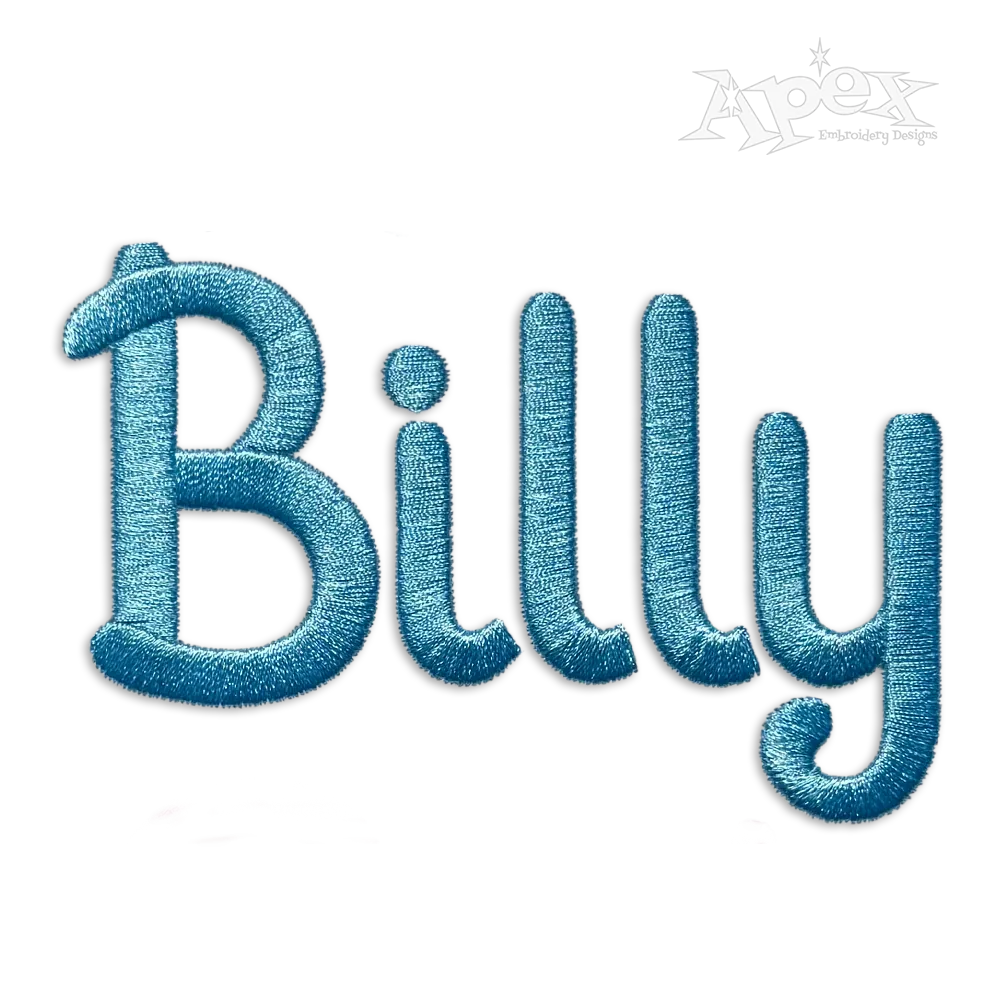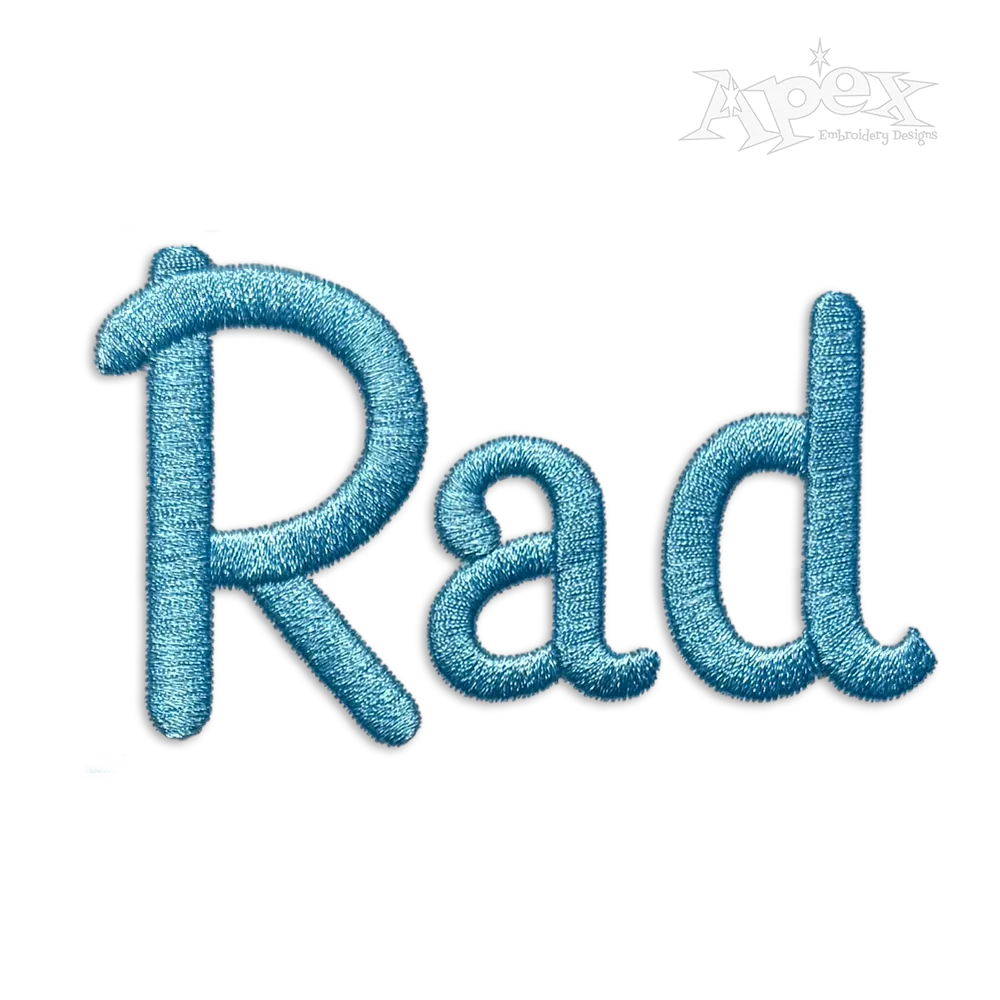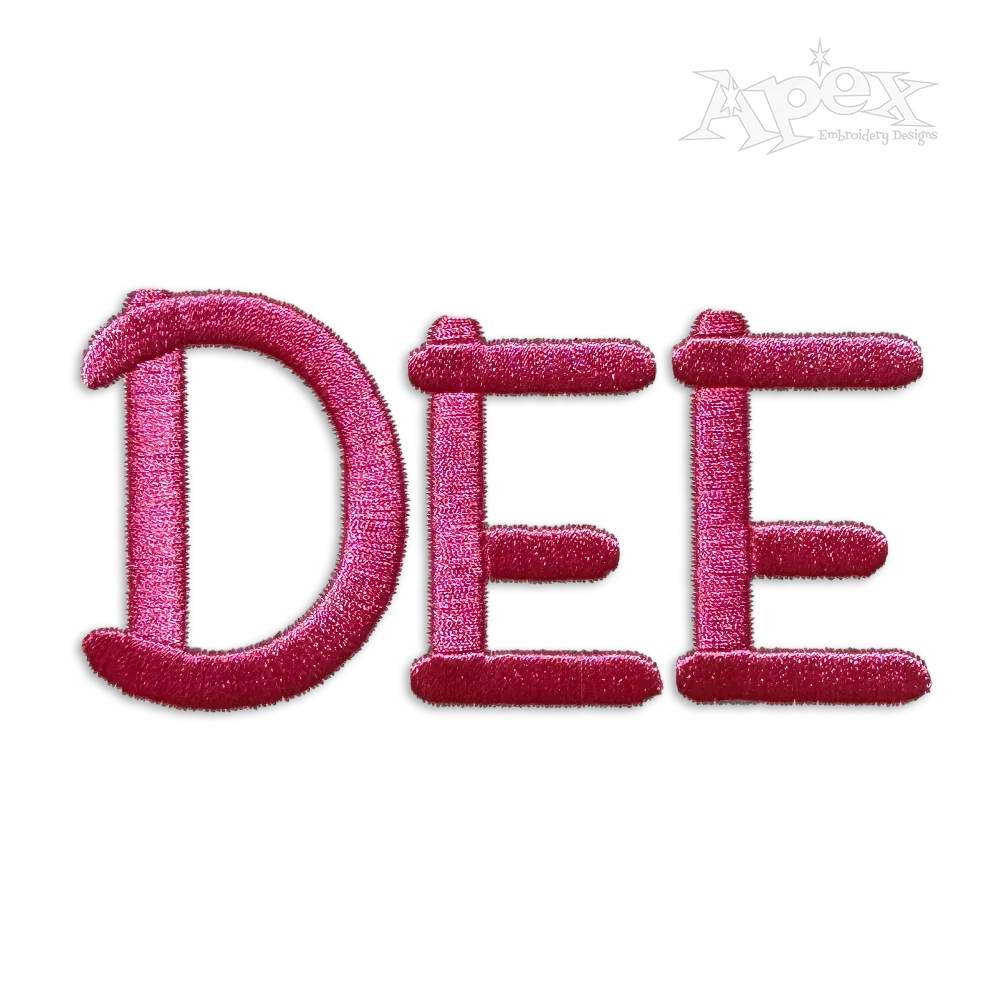
Tonka Embroidery Font
There is an infectious joy in digitizing a typeface that refuses to blend into the background. With the Tonka Embroidery Font, our studio set out to capture the spirited innocence and rugged cheer of childhood adventures. Drawing inspiration from heavy-duty toy trucks, vintage storybook typography, and sunny playground days, Tonka is drawn with unapologetic confidence. Each letterform is stout, rounded, and wonderfully buoyant, designed to lay down thick, pillowy satin stitches that feel delightfully tactile beneath your fingertips. It is an embroidery font that radiates good humor and enduring charm, turning everyday fabrics into heirloom keepsakes filled with personality.
Project Ideas for Tonka Embroidery Font
Thanks to its full-bodied strokes and friendly silhouette, Tonka shines across casual lifestyle wares and custom giftware:
- Custom Playwear & Overalls: Monogram denim overalls, corduroy dungarees, and jersey knit t-shirts for little ones who play hard and look adorable doing it.
- Personalized Canvas Totes & Duffles: Add bold, readable lettering to heavy cotton duck boat bags, camp duffels, and weekend gear.
- Plush Towels & Robes: Stitch thick, legible names on absorbent terry cloth pool towels and cozy bath wraps where thinner lettering tends to get lost.
- Nursery Canvas Storage: Embroider labeled canvas bins and toy organizers with clear, graphic titles that double as room decor.
- Festive Birthday & Milestone Apparel: Pair bright thread shades with Tonka’s chunky numbers to commemorate birthdays, field days, and family celebrations.
Tonka’s substantial footprint makes placement both versatile and striking:
- Center Chest: Position full names or punchy phrases centered 1.5 to 2 inches below the collar ribbing on children's sweatshirts and tees.
- Pockets & Flaps: Use the 1-inch size directly above front bib pockets, shirt pockets, or backpack zip-flaps for an authentic workwear feel.
- Diagonal Corner Monograms: Anchor the lower-right corner of baby blankets, bath towels, and burp cloths with an oversized initial or three-letter layout.
- Along Sleeve Cuffs or Pant Hems: Run a child's nickname down a sleeve or across a rear denim pocket for an unexpected, playful pop of custom stitching.
Tonka Embroidery Font Craft & Letterform Details
Digitizing a font with wide, bold satin columns requires master-level compensation to keep the finished embroidery crisp and flat. Rather than letting the wide strokes pull the fabric or sink irregularly into the weave, we built Tonka upon a dedicated foundation of structural running and zig-zag underlay stitches. This scaffolding lifts the final satin passes, giving them a sculptural, three-dimensional sheen that glistens in the light.
Special care was poured into the curve transitions and terminal caps. Gentle radiuses soften every hard corner, preventing needle deflection and fiber chewing while ensuring smooth, continuous thread travel. The digitized stitch angles flow naturally around the bellies of letters like 'B', 'P', and 'R', maintaining consistent stitch length and tension balance across every size. The result is a stitch-out that runs smoothly from start to finish, yielding impeccably crisp, raised lettering that stands up to countless wash cycles and years of joyful wear.